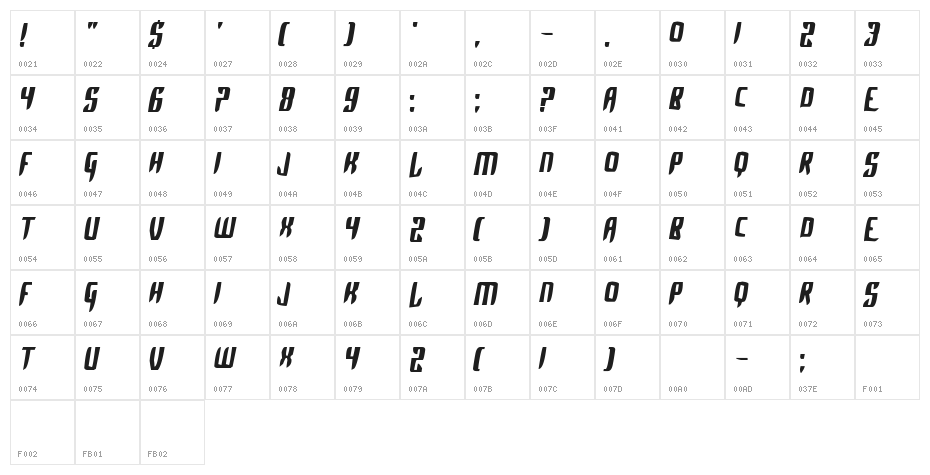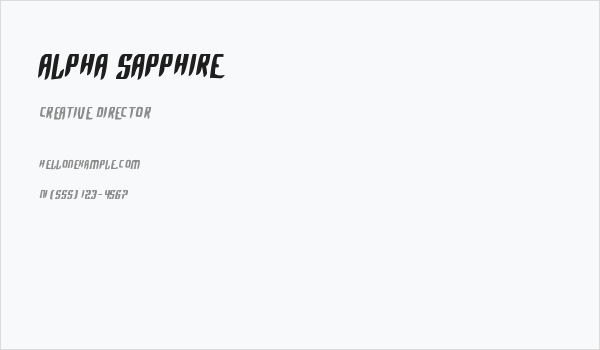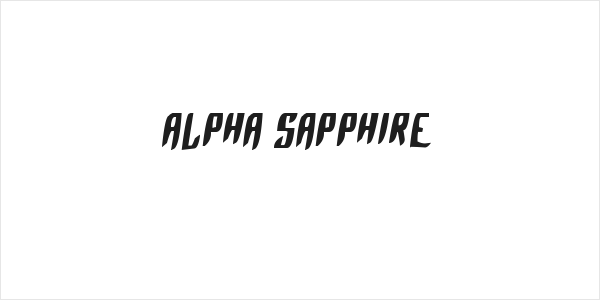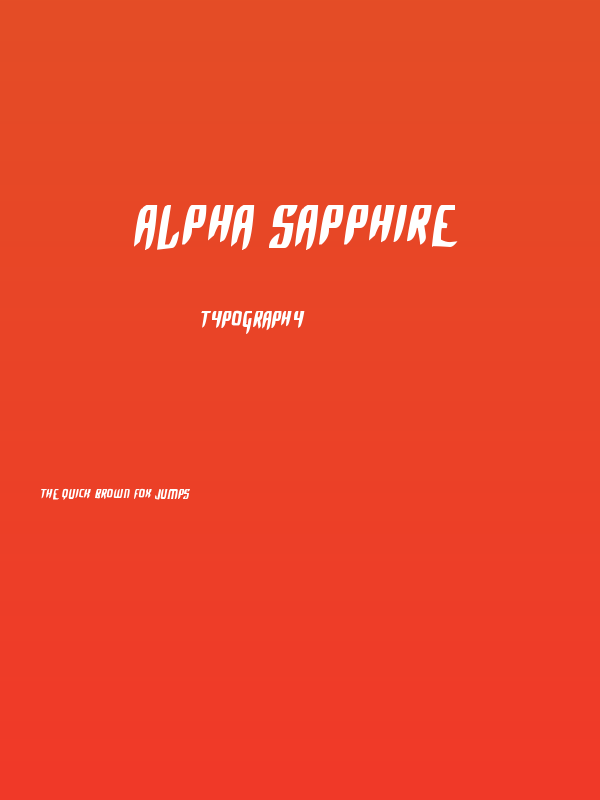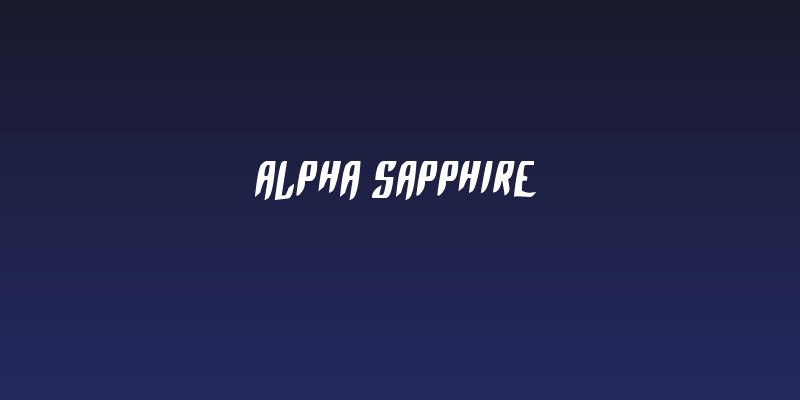
Alpha Sapphire Font
Alpha Sapphire Description
This font features a bold and dynamic design with sharp, angular edges and a forward-leaning posture that conveys a sense of speed and modernity. The characters are uniquely stylized with a futuristic flair, making them stand out with their distinctive geometric shapes. The uppercase and lowercase letters maintain a consistent style, with the numbers and special characters following suit. The font's aggressive angles and sleek lines give it a powerful presence, suitable for projects that require a strong visual impact.